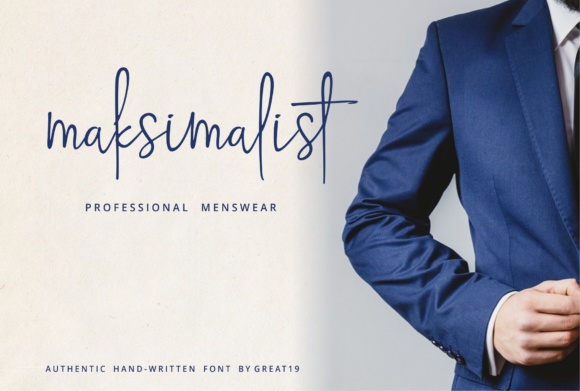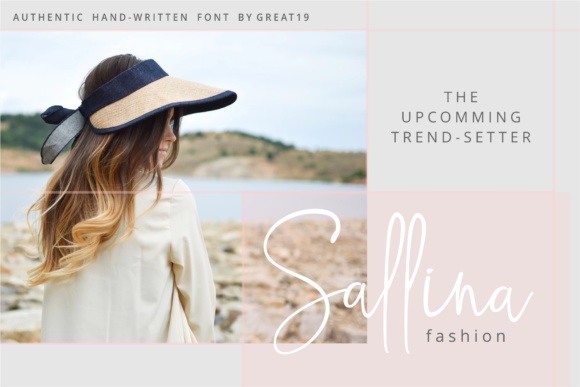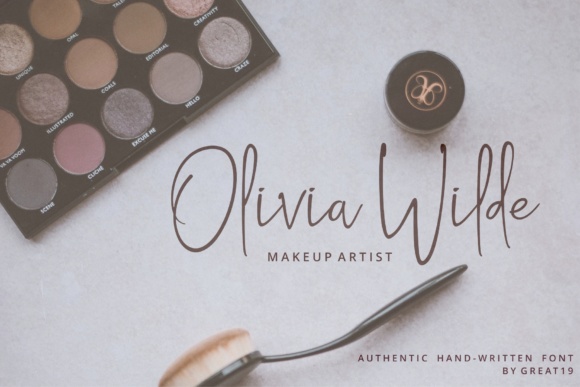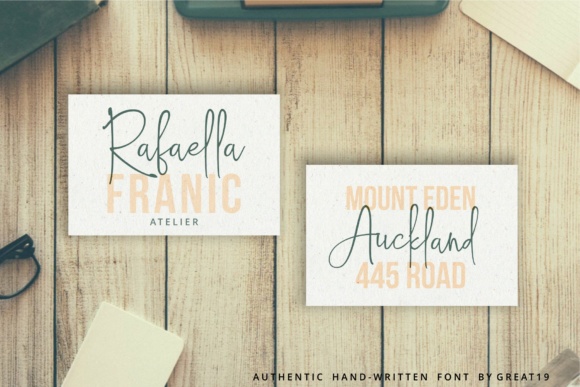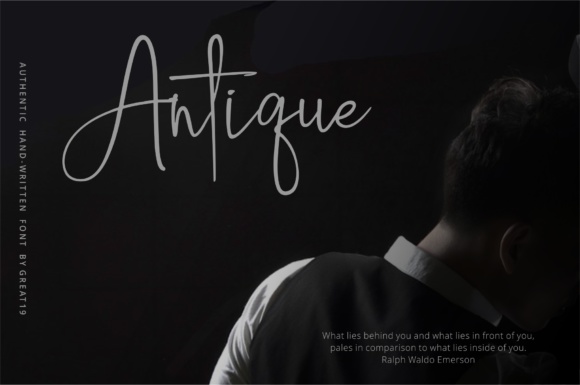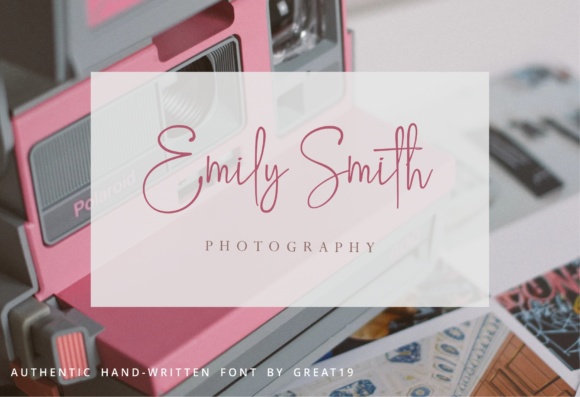
Hampton Font: Elevate Your Designs with a Touch of Sophistication
In the world of typography, fonts play a crucial role in conveying the tone and personality of a brand or design. For designers and crafters looking to add a touch of sophistication and uniqueness to their work, Hampton Font is an excellent choice. This hand-written signature font, created using a 1.0 mm ballpoint pen, offers an authentic look that is sure to elevate your designs.
The Story Behind Hampton Font
Hampton Font is a carefully crafted font that exudes elegance and refinement. The use of a 1.0 mm ballpoint pen to create the font gives it a distinctive, hand-written feel that is both authentic and high-end. The font’s creator aimed to produce a typeface that would be perfect for designs requiring a personal touch, and Hampton Font certainly delivers on that promise.
Key Characteristics of Hampton Font
Hampton Font can be described using several key adjectives: sophisticated, authentic, unique, high-end, and fancy. These characteristics make it an ideal choice for a variety of design applications, including:
- Logotypes: Create a lasting impression with a custom logotype that showcases your brand’s personality.
- Branding: Establish a strong brand identity with a font that exudes elegance and refinement.
- Magazines: Add a touch of sophistication to your magazine layouts with Hampton Font.
- Watermarks: Create subtle yet effective watermarks that add an extra layer of protection to your designs.
- Titles: Use Hampton Font to create eye-catching titles that grab attention.
- Business cards: Make a lasting impression with business cards that feature a unique and sophisticated font.
Why Choose Hampton Font?
With so many fonts available, why choose Hampton Font? Here are just a few reasons why designers and crafters love this font:
- Unique feel: Hampton Font’s hand-written signature style gives it a distinctive feel that sets it apart from other fonts.
- Authentic look: The use of a 1.0 mm ballpoint pen to create the font gives it an authentic, organic look.
- High-end feel: Hampton Font is perfect for designs that require a touch of sophistication and elegance.
- Versatility: This font can be used for a wide range of design applications, from logotypes to business cards.
Tips for Using Hampton Font
To get the most out of Hampton Font, here are a few tips to keep in mind:
- Use it sparingly: Hampton Font is best used sparingly to add a touch of elegance to your designs.
- Experiment with colors: Try pairing Hampton Font with different colors to create a unique look.
- Mix and match: Combine Hampton Font with other fonts to create a visually interesting design.
In conclusion, Hampton Font is a sophisticated and authentic hand-written signature font that is perfect for designers and crafters looking to add a touch of elegance to their work. With its unique feel, authentic look, and high-end feel, Hampton Font is sure to elevate your designs and make them stand out from the crowd.